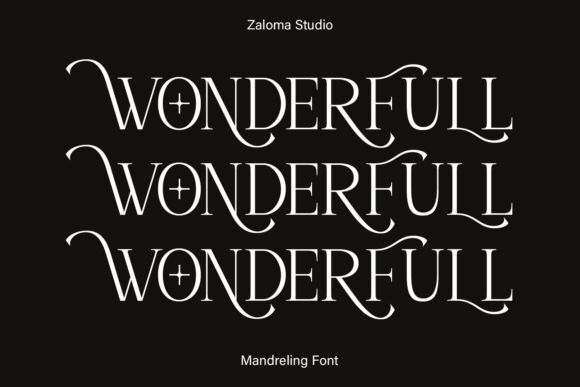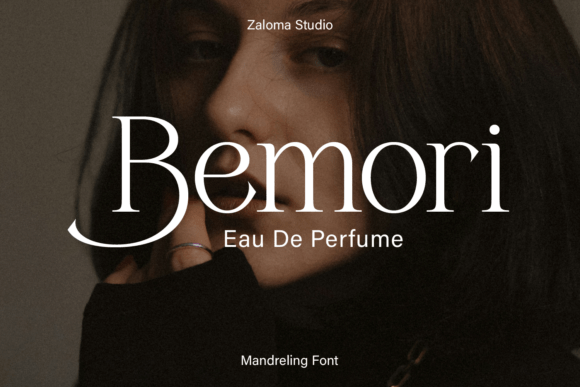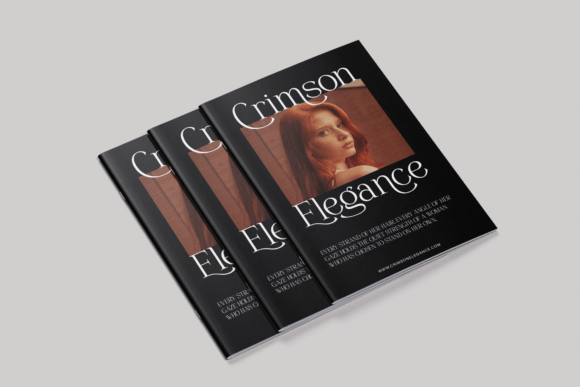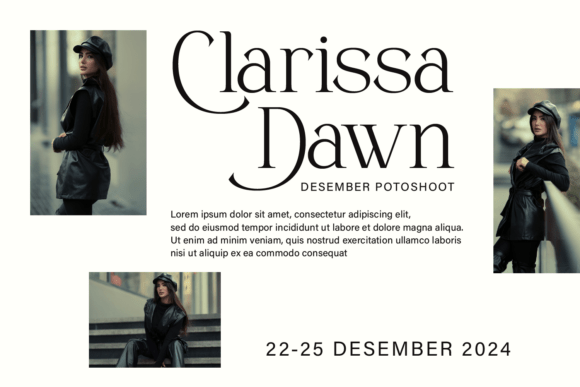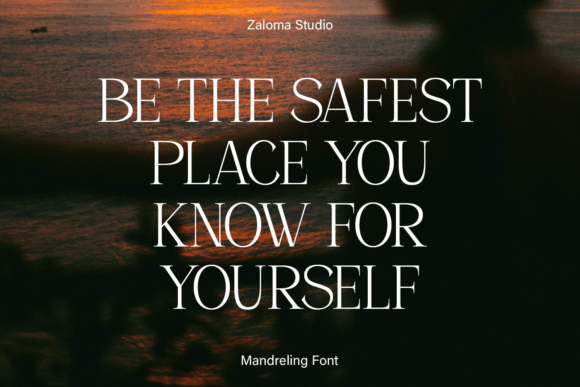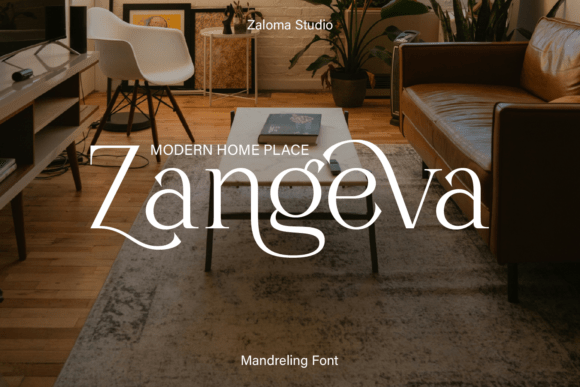
Introduction to Mandreling Font
Mandrèling is a modern serif font with an elegant, classic touch.
Designed by Zaloma Studio, it features graceful high contrast strokes, complete with decorative alternates and ligatures Its tall, curved shapes give a luxurious, romantic, and feminine feel — perfect for branding, editorials, invitations, and premium packaging.
Key Features of Mandreling Font